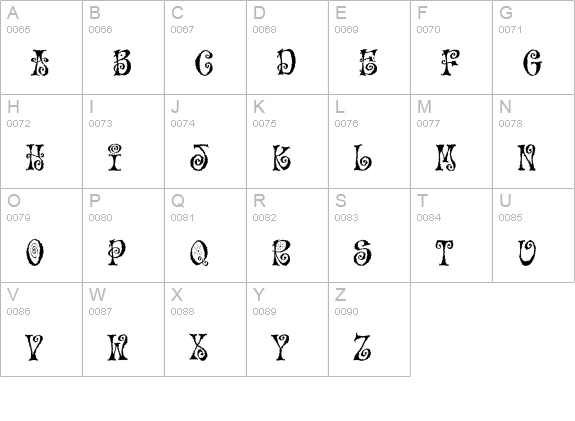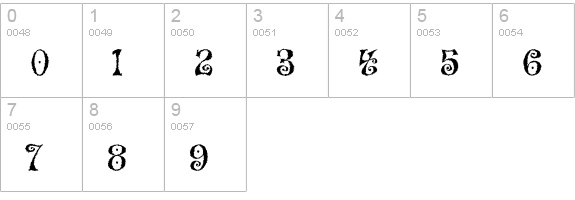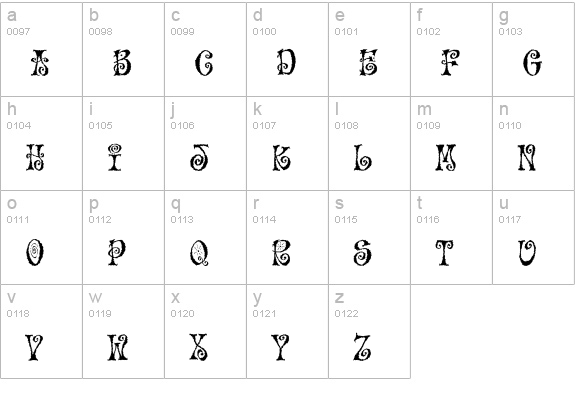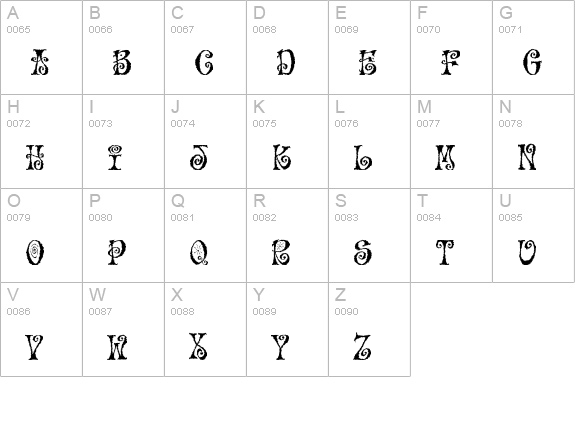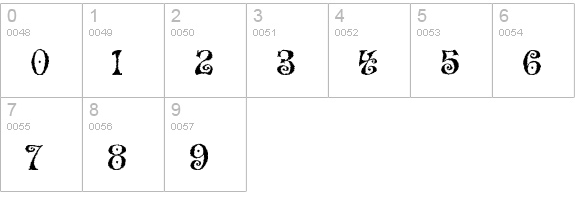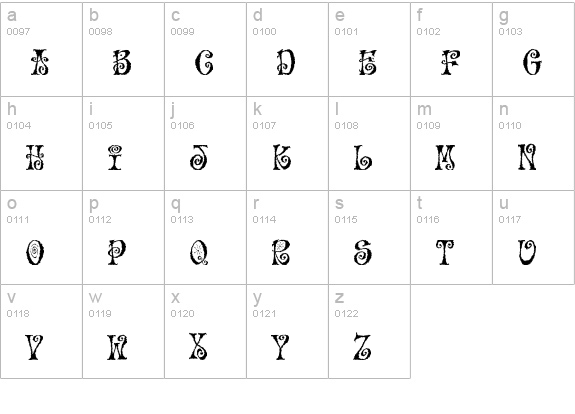
Mo Funky Fresh Std Font Details
Mo Funky Fresh Std font is a vibrant and energetic display typeface that exudes a sense of fun and playfulness. With its bold and quirky design, this font is perfect for adding a touch of personality to your projects. Whether you're creating posters, flyers, or social media graphics, Mo Funky Fresh Std will make your text stand out and grab attention. The best part is that Mo Funky Fresh Std font is completely free to download at FontsMarket.com. You can easily access this unique font and start using it in your designs right away. Don't miss out on the opportunity to add a touch of funkiness to your typography with Mo Funky Fresh Std!